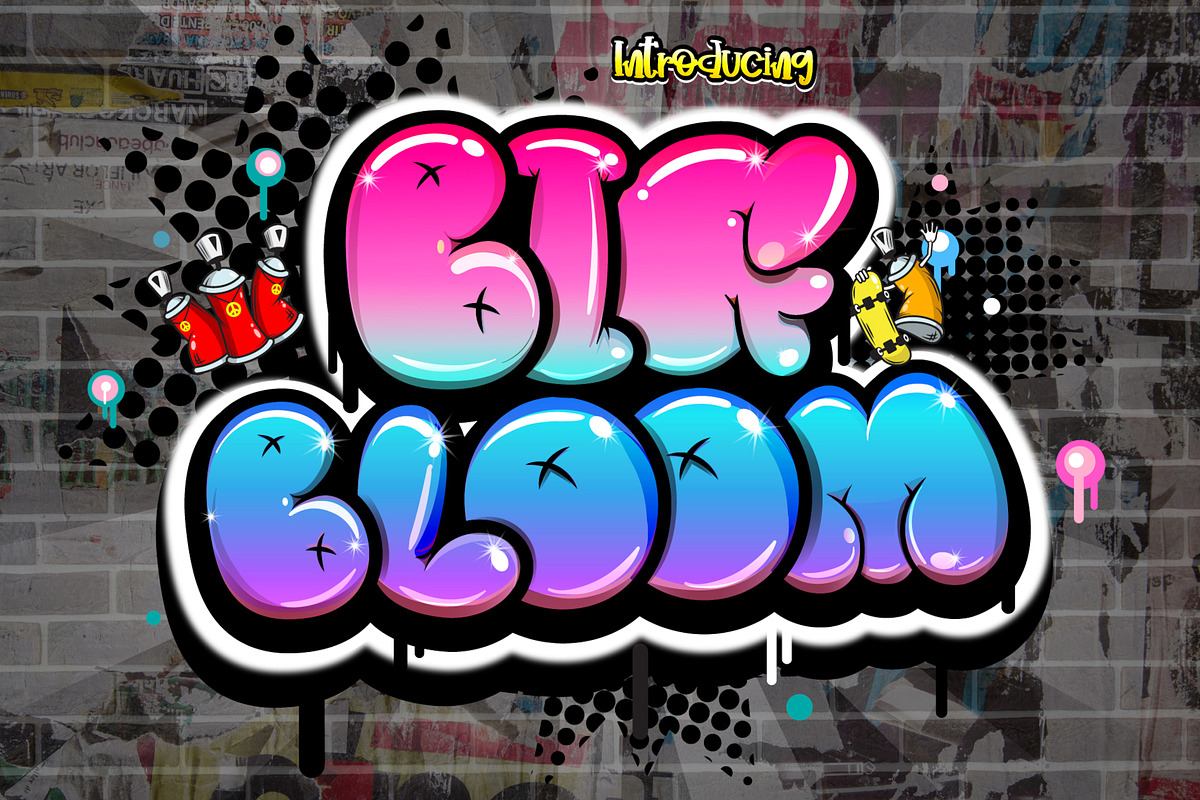
Big Bloom Free Download
Big Bloom Font Free Download is a bold and modern typeface that combines playful, oversized letterforms with a fresh, creative design. Perfect for projects that need to make a statement, Big Bloom is ideal for headlines, logos, posters, branding, and any design that requires a bold and vibrant typographic approach.
Big Bloom Font Free Download brings energy and confidence to your typography, making it perfect for designs that need to stand out and grab attention. Whether you're creating an eye-catching logo, designing a promotional poster, or developing unique branding, this font adds fun and impact to your work. Download it today and let Big Bloom make your designs pop!